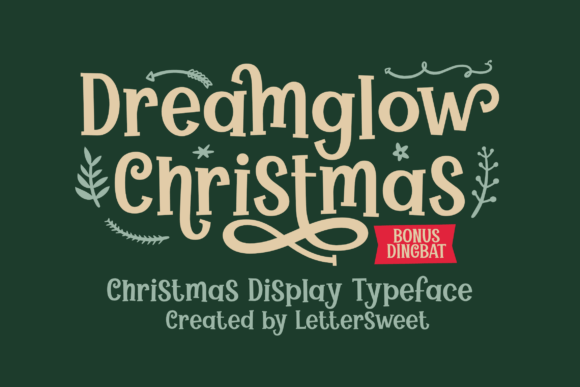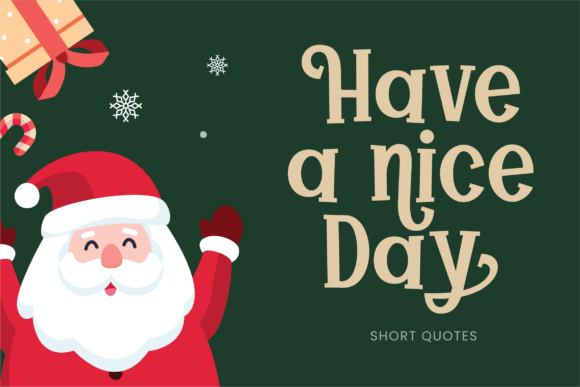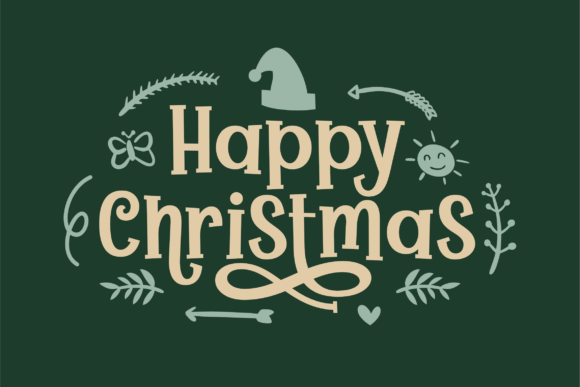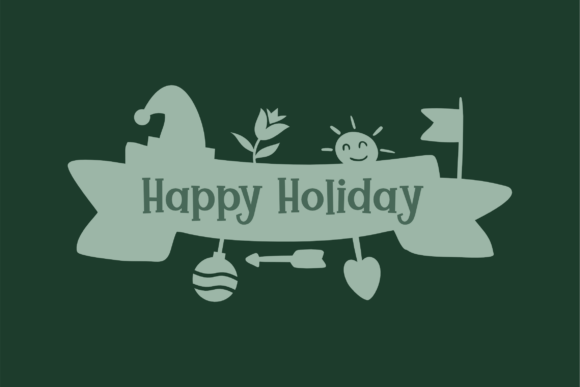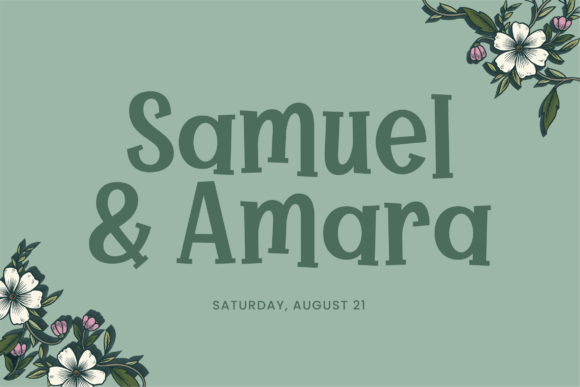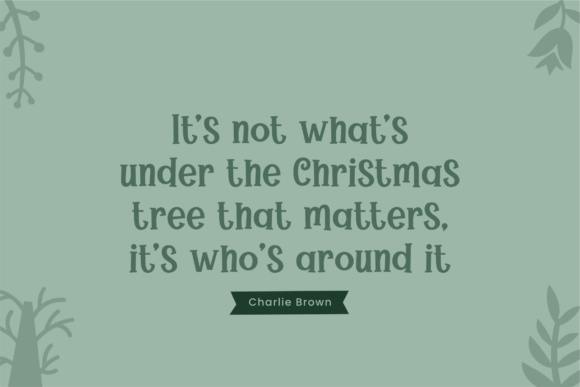
Dreamglow Christmas Font
Dreamglow Christmas is a whimsical and festive display typeface designed to bring the magic of the holiday season to life. With its playful curves, soft serifs, and a touch of retro charm, this font radiates warmth and joy, making it perfect for Christmas-themed projects. Whether you’re designing greeting cards, holiday banners, or festive packaging, Dreamglow Christmas delivers a cozy, handcrafted feel with an added bonus of delightful dingbats to complete your creative vision. Let this font be the glowing highlight of your Christmas designs!